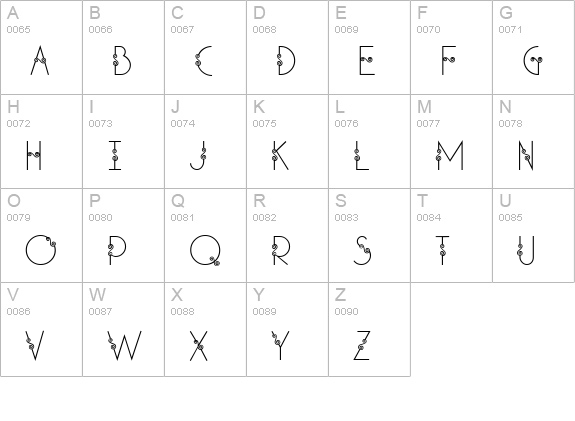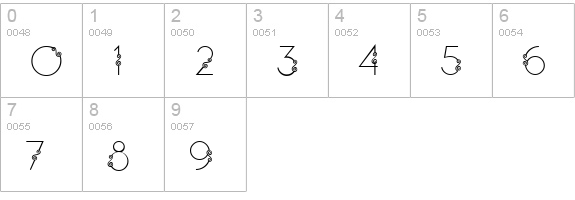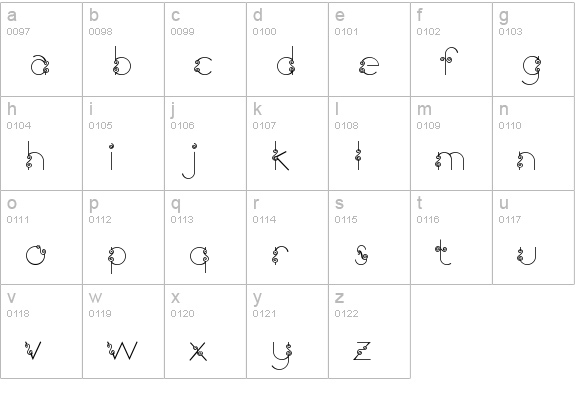
Cecily Font Details
Cecily font is a beautifully crafted typeface that exudes elegance and sophistication. Its graceful curves and delicate serifs make it perfect for adding a touch of class to any design project. Whether you're creating wedding invitations, branding materials, or editorial layouts, Cecily font will elevate your work to a whole new level. What's even better is that Cecily font is available for free download at FontsMarket.com. This means you can easily access this stunning typeface without having to break the bank. Don't miss out on the opportunity to enhance your designs with the timeless beauty of Cecily font. Download it today and see the difference it can make in your projects!